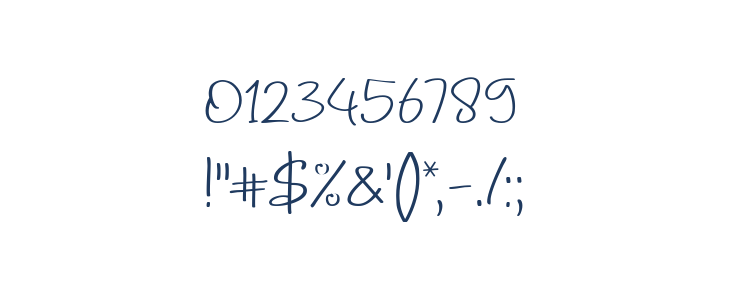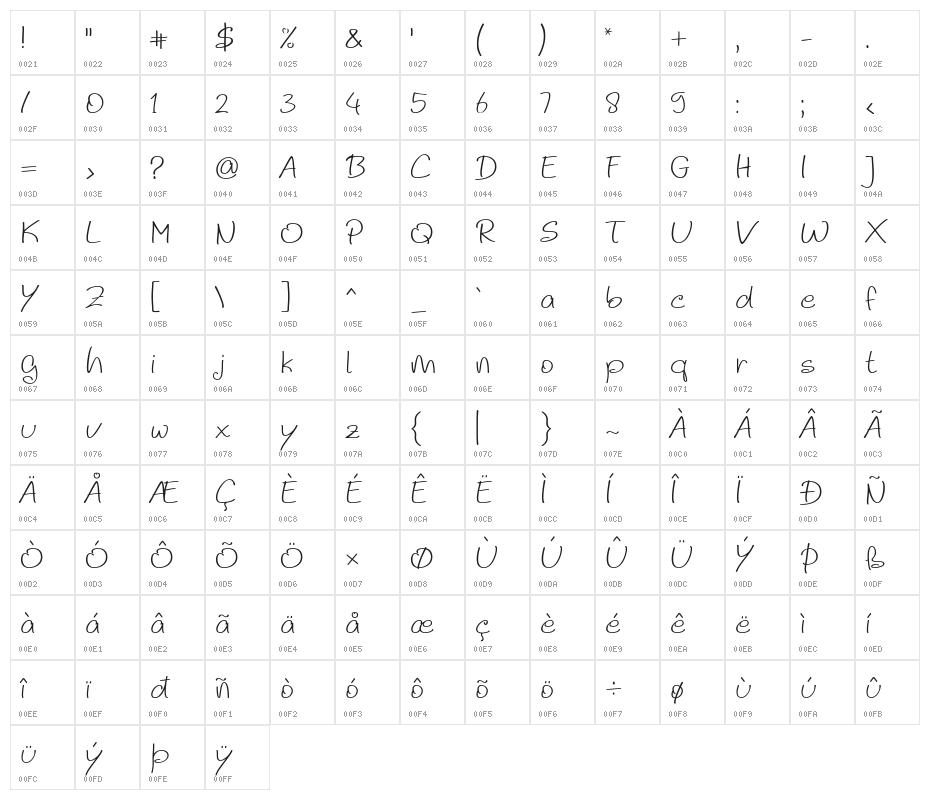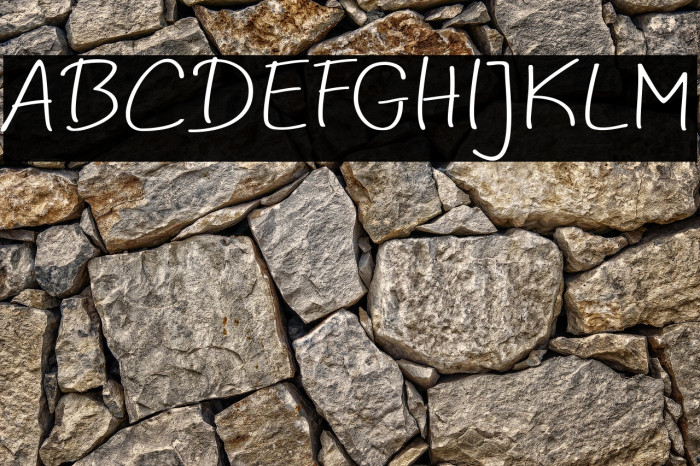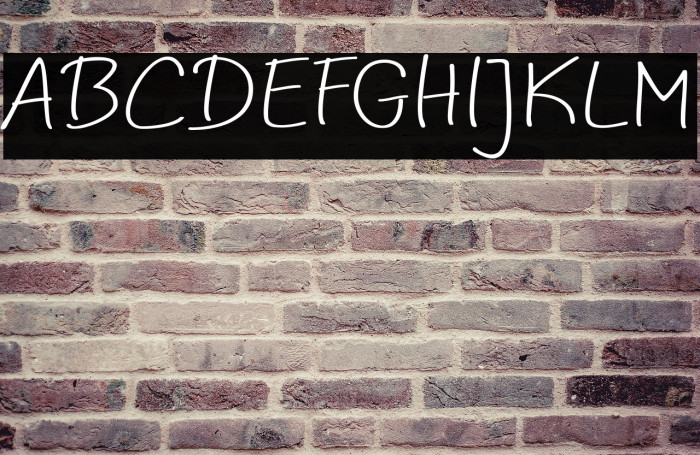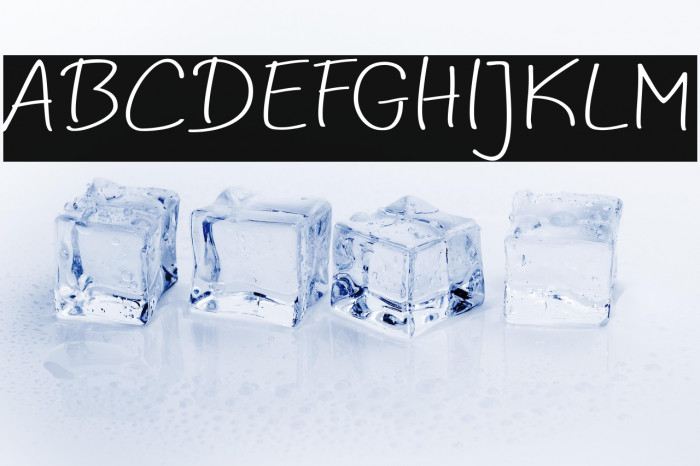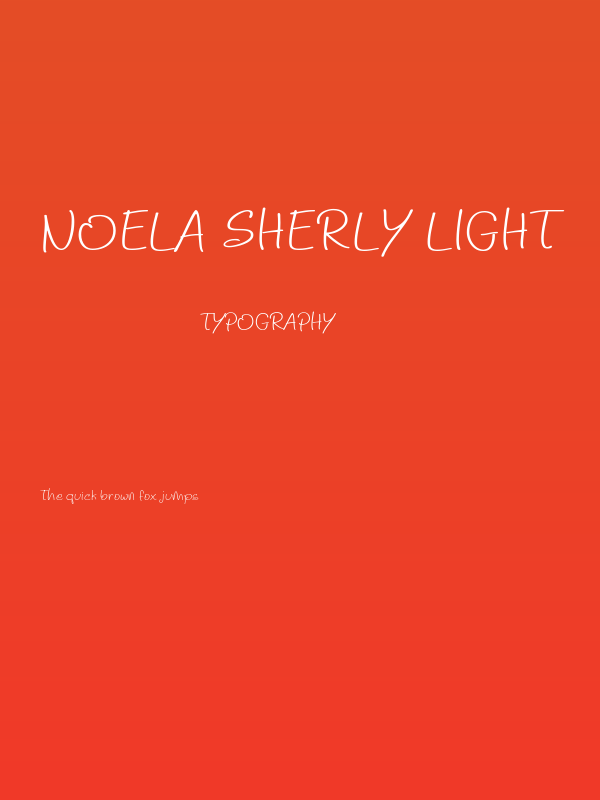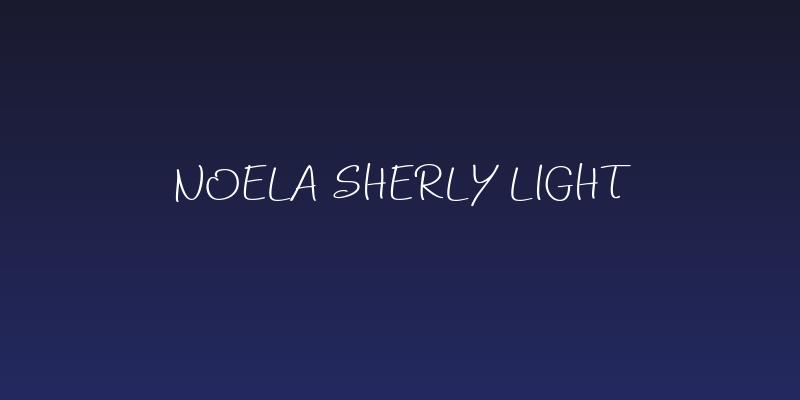
Noela Sherly Light Font
Noela Sherly Light Description
This font features a playful and casual handwritten style, characterized by its smooth, flowing curves and slightly irregular letterforms that give it a personal touch. The letters are well-spaced, ensuring readability while maintaining a relaxed aesthetic. The uppercase letters are slightly taller than the lowercase, adding a sense of hierarchy and structure. The numbers and special characters are consistent with the overall style, making it versatile for various uses. Its light weight and informal appearance make it suitable for creative projects that require a friendly and approachable feel.